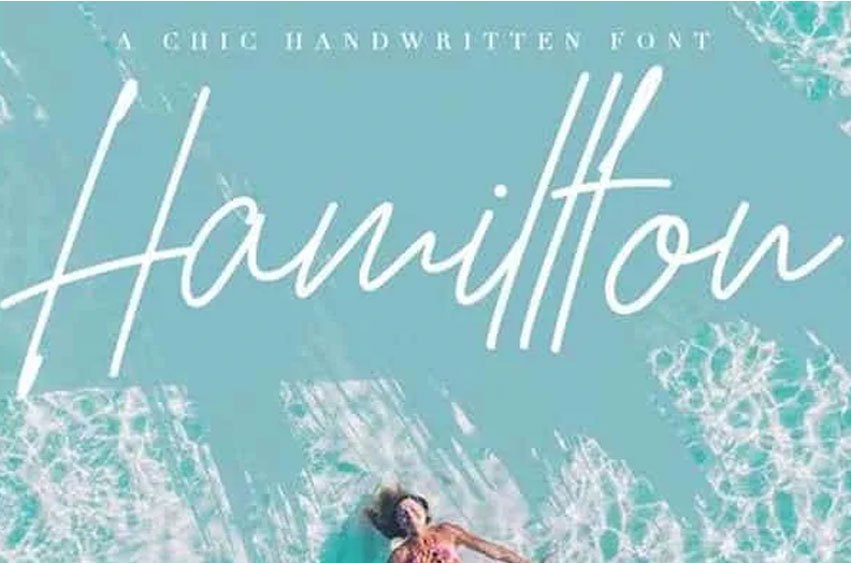
Hamillton Font Ardyana typewriters also produce and employ the Hamillton font, which is a graceful handwritten script. Messy Asha Verve can be described as beautiful chaos that is perfect for logos, blogs, and advertising – all while being stylish and sophisticated.